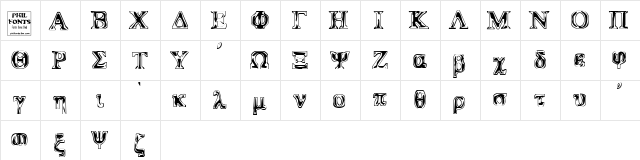
Parthenon Font Preview
Parthenon Parthenon
Parthenon Font Details
Design Context for Parthenon Typeface
Parthenon is a composed and adaptable typeface that performs quietly and consistently across a wide range of design contexts.